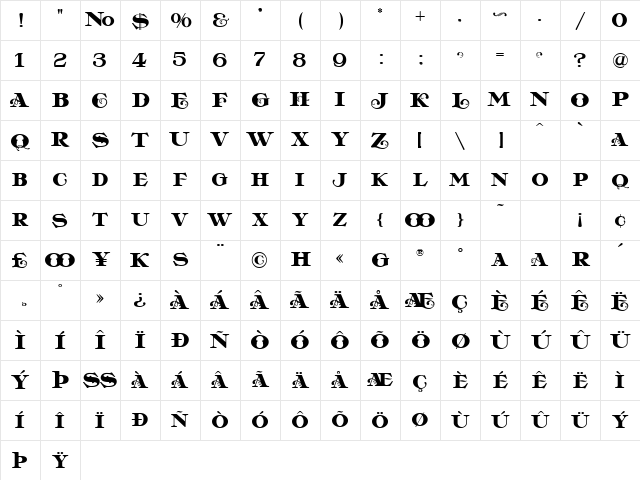
LHF Casablanca Regula Free Font
LHF Casablanca Regula
Style: Regula
Complete LHF Casablanca Regula glyph index. Displaying only characters natively supported by LHF Casablanca Regula font.
Design Context for LHF Casablanca
LHF Casablanca is a composed and adaptable typeface that performs quietly and consistently across a wide range of design contexts.